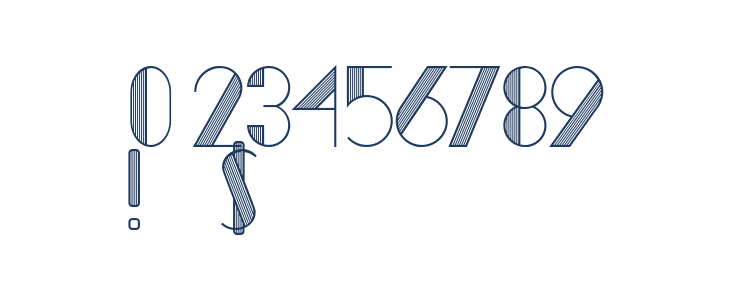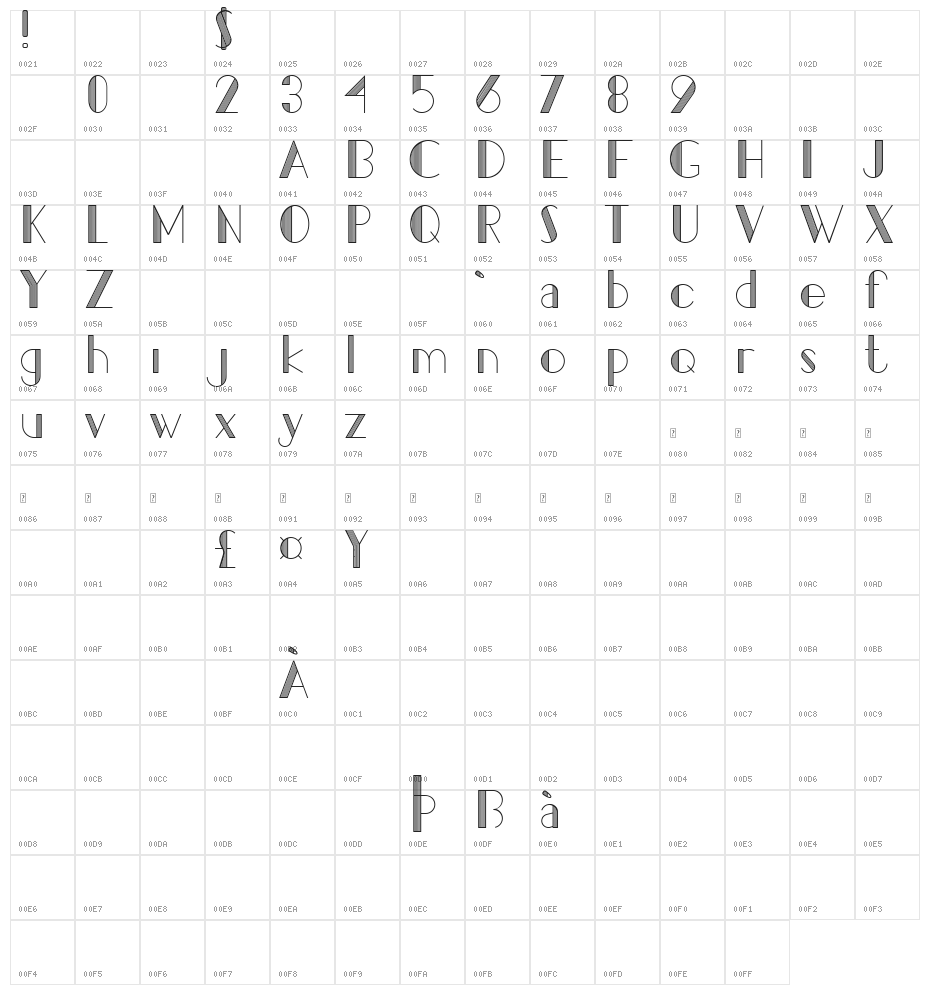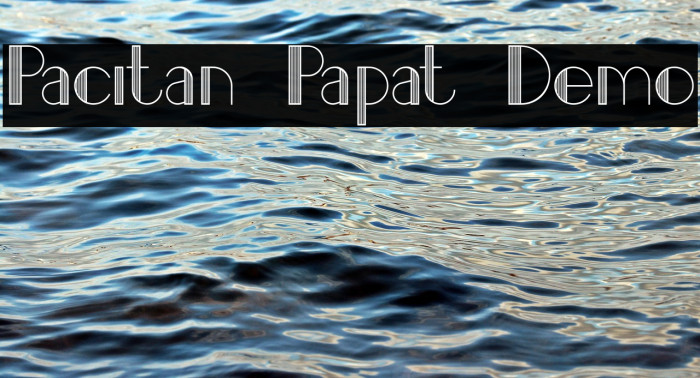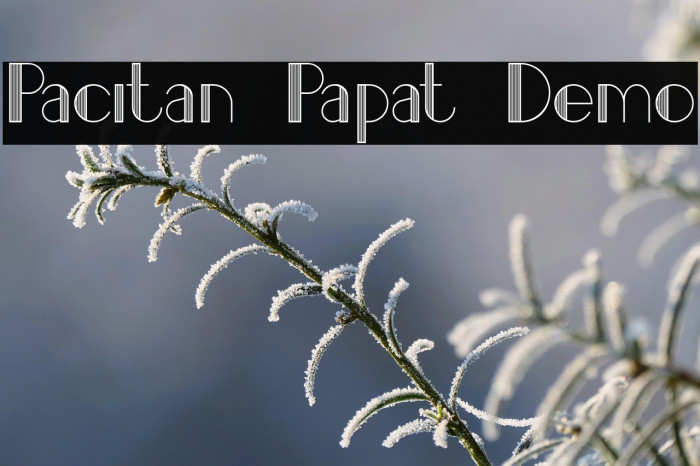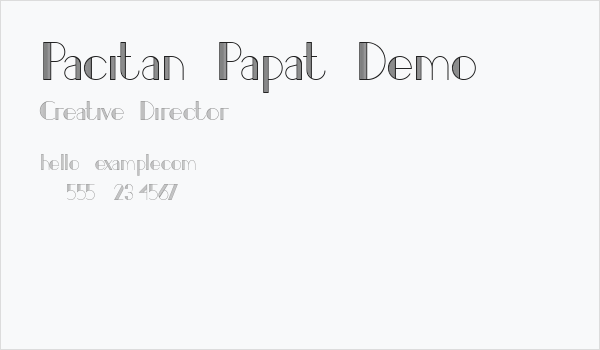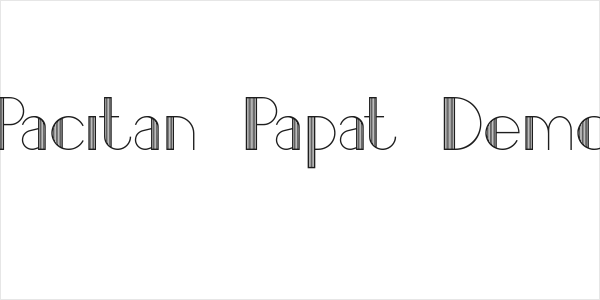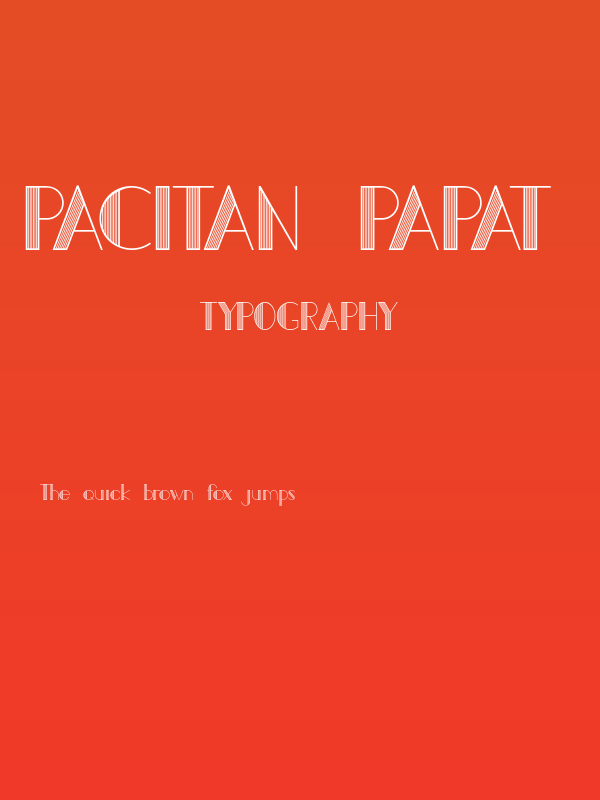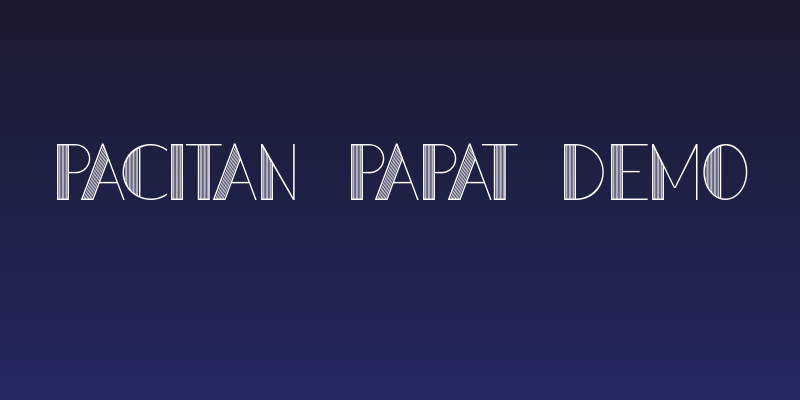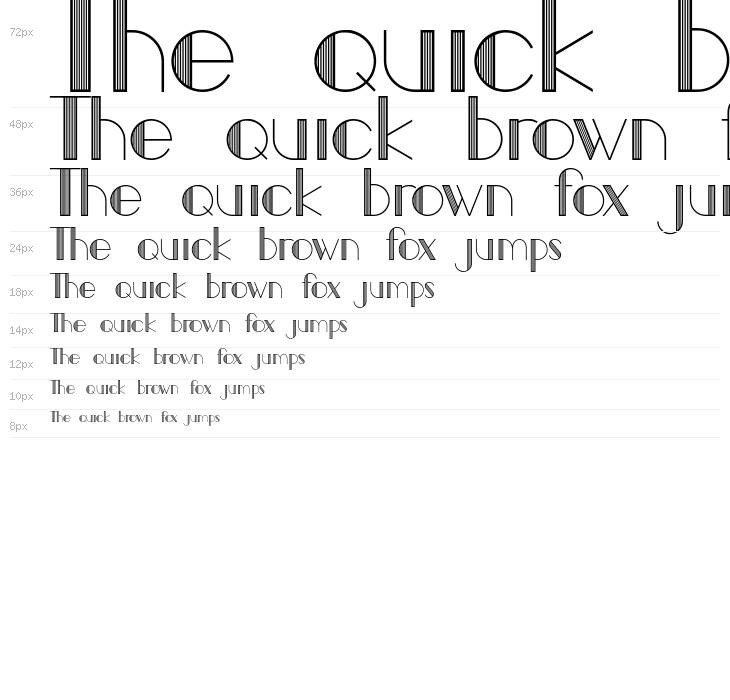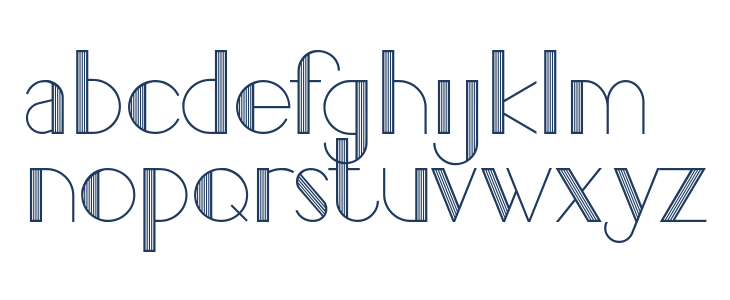
Pacitan Papat Demo Font
Pacitan Papat Demo Description
This font features a unique and modern design with a distinct striped pattern running through each character. The uppercase letters are tall and elegant, with a geometric influence that adds a contemporary feel. The lowercase letters maintain a similar style, offering a cohesive look across the alphabet. Numbers and special characters are designed with the same striped aesthetic, ensuring consistency throughout. The font's clean lines and artistic flair make it suitable for creative projects that require a touch of sophistication and modernity.
| Proposed Projects | Ideal for branding, posters, and editorial design where a modern and artistic touch is desired. |